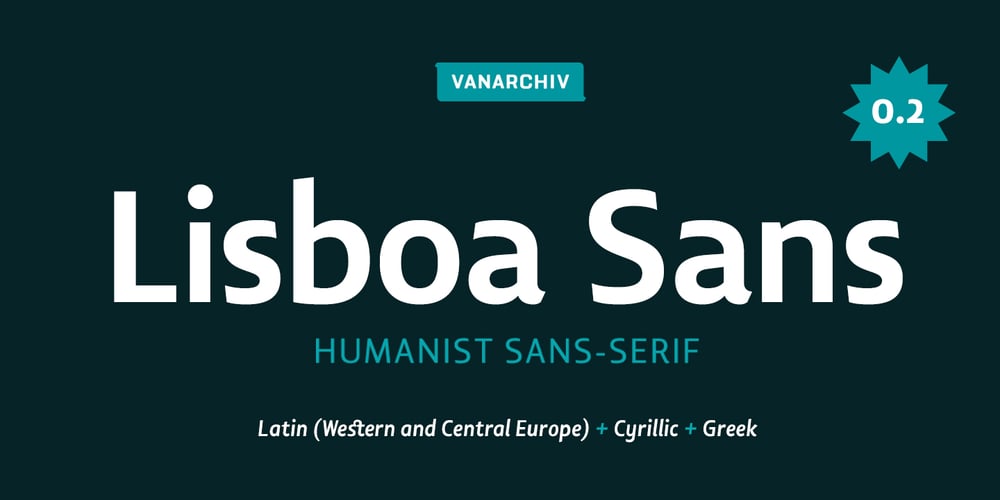
Lisboa Sans Font Family was designed by Ricardo Santos and published by Vanarchiv. Lisboa Sans contains 16 styles and family package options. This humanist sans-serif typeface was exhaustively designed, full-featured typeface family that reveals its character and distinctiveness in complex settings. It features a large complement of ligatures, lining and old-style figures, expert characters, dingbats (arrows, brackets, and symbols for both Regular weights). Lisboa Sans lacks the hook-head terminals, but its structure and proportions are the same. The simplicity of the sans weight created very strong readability at small sizes. After ten years from the first version publication, this new version (0.2) is available with Latin (Western, Central Europe) and Cyrillic alphabets. It was selected by Our Favorite Fonts of 2005 (Typographica).